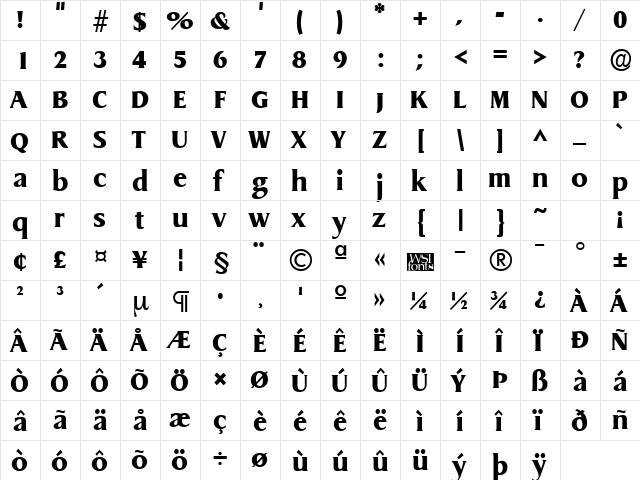
GriffonExtrabold Regular
Design Context for GriffonExtrabold Typeface
GriffonExtrabold is a composed and adaptable typeface that performs quietly and consistently across a wide range of design contexts. The heavy weight commands attention and anchors typographic hierarchies.